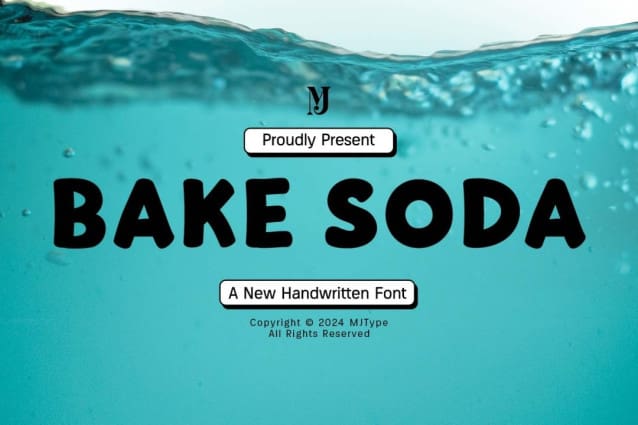
Bake Soda Font
Bake Soda Font is a chunky, comic, and cartoon display font. With its neat and joyful personality, this font will enhance any project you wish to create!